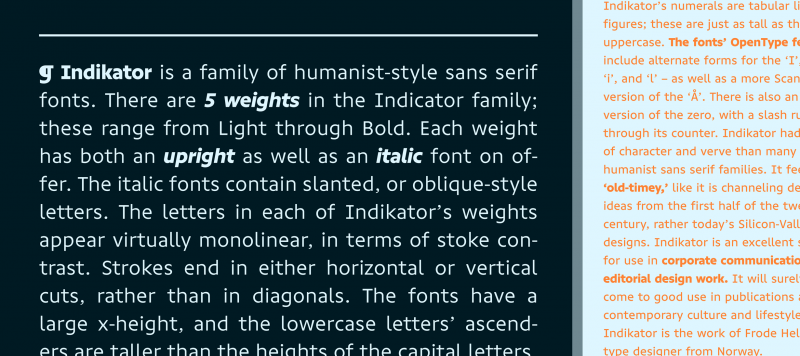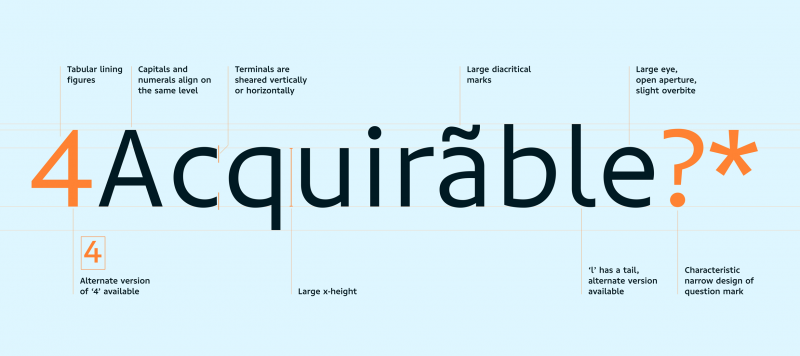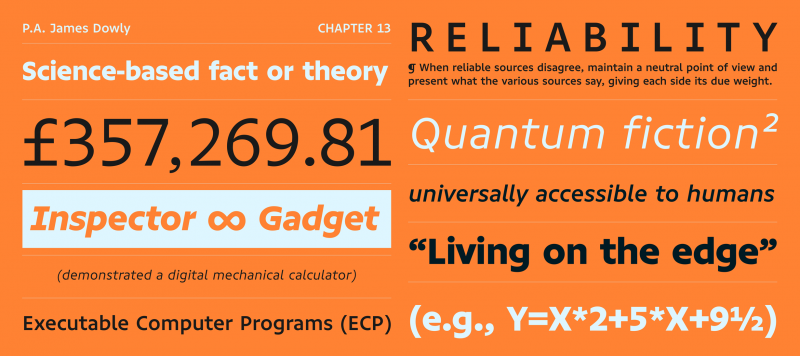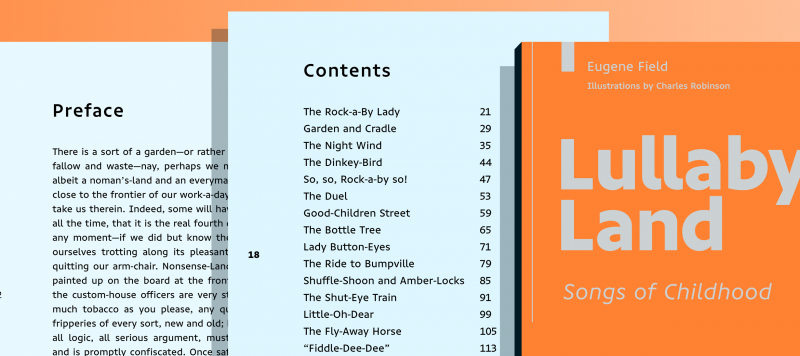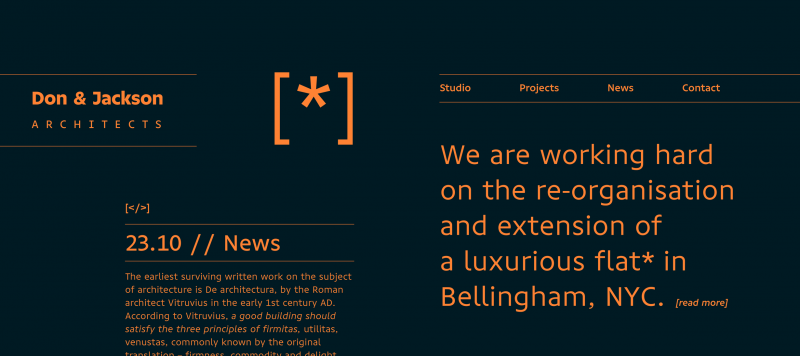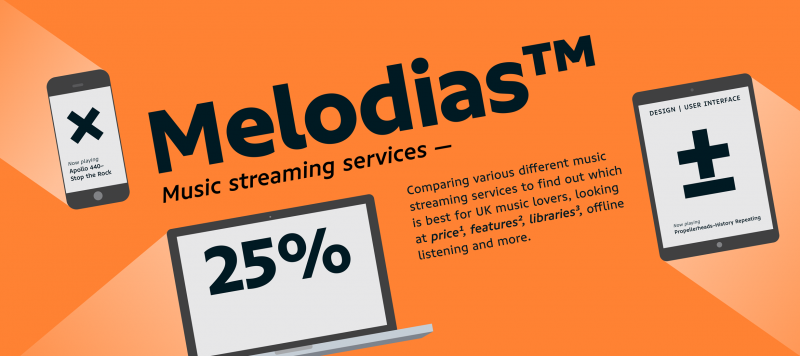
Indikator is a family of humanist-style sans serif fonts. There are five weights in the Indicator family; these range from Light through Bold. Each weight has both an upright as well as an italic font on offer. The italic fonts contain slanted, or oblique-style letters. The letters in each of Indikator’s weights appear virtually monolinear, in terms of stoke contrast. Strokes end in either horizontal or vertical cuts, rather than in diagonals. The fonts have a large x-height, and the lowercase letters’ ascenders are taller than the heights of the capital letters. Indikator’s numerals are tabular lining figures; these are just as tall as the fonts’ uppercase. The fonts’ OpenType features include alternate forms for the ‘I’, ‘J’, ‘4’, ‘i’, and ‘l’ – as well as a more Scandinavian version of the ‘Å’. There is also an alternate version of the zero, with a slash running through its counter. Indikator had a lot of character and verve than many other humanist sans serif families. It feels a little ‘old-timey,’ like it is channeling design ideas from the first half of the twentieth century, rather today’s Silicon-Valley-style designs. Indikator is an excellent selection for use in corporate communication or editorial design work. It will surely also come to good use in publications about contemporary culture and lifestyle issues. Indikator is the work of Frode Helland, a type designer from Norway.
Family Name Indikator
Classification Sans